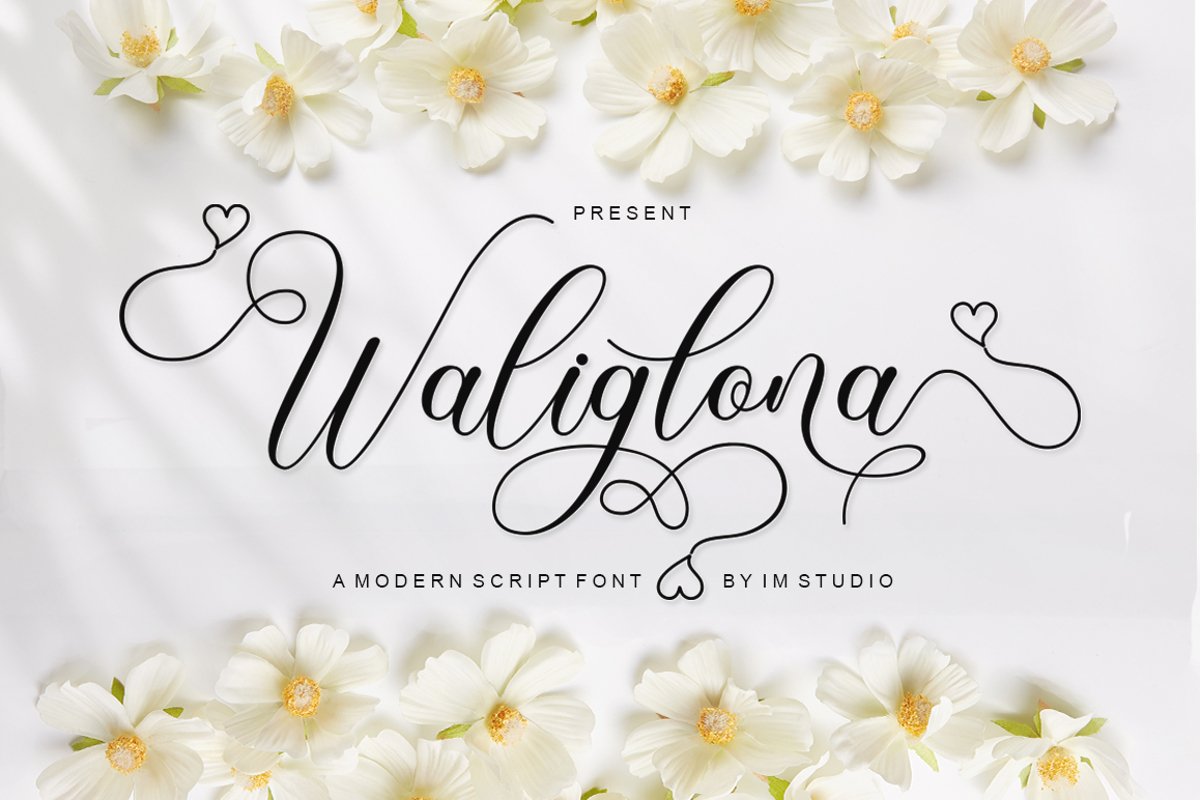
Waliglona is a beautiful script font with many alternative styles, this font looks natural, elegant and perfect for extraordinary projects. Waliglona is suitable for various products such as invitations, product packaging, offers, product designs, crafters, labels, photography, watermarks, logos & branding. Everything can be accessed using software that supports Opentype, such as Adobe Indesign, Adobe CS Illustrator, Adobe Photoshop CC, and Corel Draw.